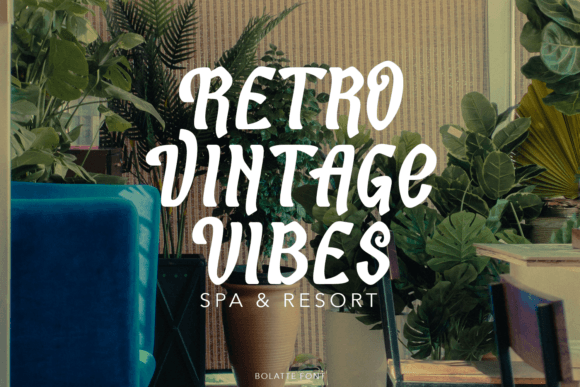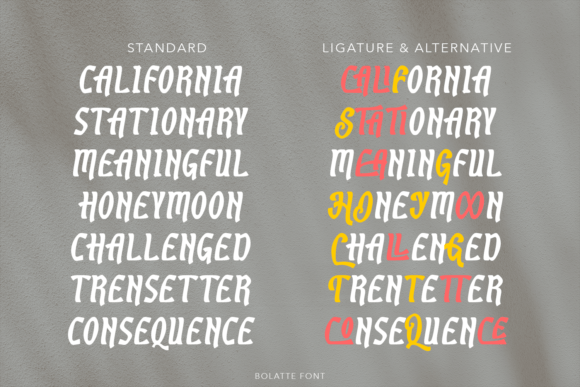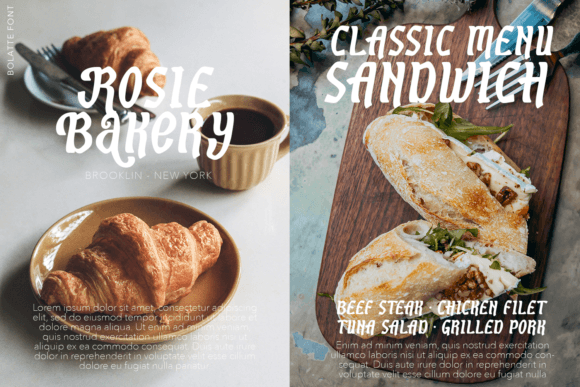
Introduction to Bolatte Font
Bolatte is a cute and charming display font.
Whimsical and a bit quirky, this font will brighten up each of your designs Add it confidently to your projects, and you will love the results.
Bolatte Font offers exceptional quality and versatility, making it a valuable addition to your design toolkit. Whether you’re creating for personal projects or commercial use, Bolatte Font delivers professional results.